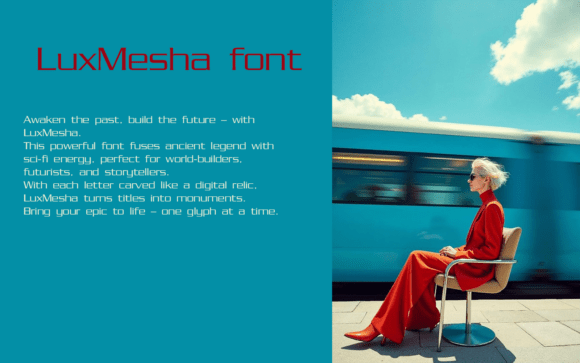
Introduction to Lux Mesha Font
As designers, we’ve all been there – staring at a blank page, trying to find the perfect font to bring our creative project to life. The search is over. Enter Lux Mesha Font, a game-changing design resource that’s about to revolutionize the way you think about typography. This incredible font is not just a pretty face – it’s a powerful tool that will transport your audience to a world of wonder and awe.
With its unique blend of ancient legend and sci-fi energy, Lux Mesha Font is the perfect choice for world-builders, futurists, and storytellers who want to create a truly immersive experience. Whether you’re working on a high-profile design project or just need a reliable design resource for your next creative endeavor, this font is sure to deliver.
Key Features of Lux Mesha Font
- High-quality, free font suitable for creative projects requiring a unique and elegant design.
- Perfect for designers seeking a versatile design resource that can elevate their creative project.
- Includes a wide range of characters, including Latin and Cyrillic alphabets, making it suitable for multilingual projects.
Honest Review: Lux Mesha Font
I recently stumbled upon the Lux Mesha Font and I must say it’s been a game-changer for my creative projects. This font is perfect for designers looking for a high-quality, unique typography solution. One of the standout features of Lux Mesha Font is its ability to work seamlessly with transparent backgrounds, making it ideal for projects that require a touch of elegance.
- High-quality design that elevates any creative project
- Unique typography that adds a touch of sophistication to your work
- Compatible with transparent backgrounds for added versatility
Overall, I’m thoroughly impressed with the Lux Mesha Font. It’s a fantastic addition to any designer’s toolkit, and I highly recommend it for anyone looking to take their creative projects to the next level.
The Lux Mesha Font is a high-quality design resource that offers a unique and creative touch to your projects. It features a transparent background, making it perfect for overlaying on images or videos.
Tips for Getting the Most Out of the Lux Mesha Font
To get the most out of the Lux Mesha Font, use it in combination with other design elements, such as images and graphics. You can also experiment with different font sizes and colors to create a unique look.
The Lux Mesha Font is perfect for a variety of design projects, including social media graphics, presentations, and documents. It’s also a great choice for creative projects that require a unique and eye-catching font.